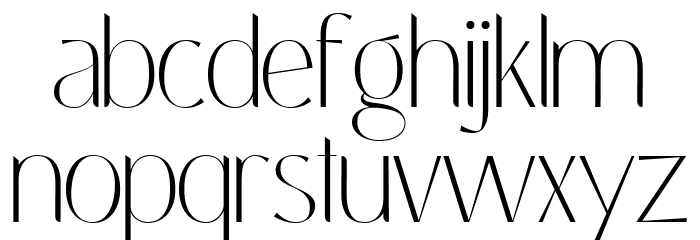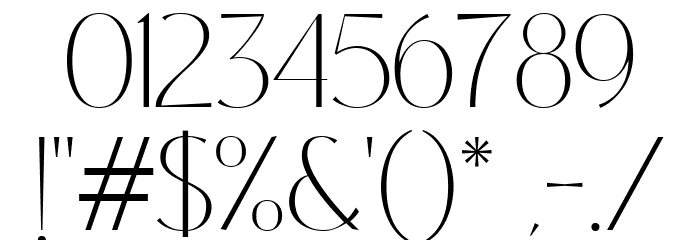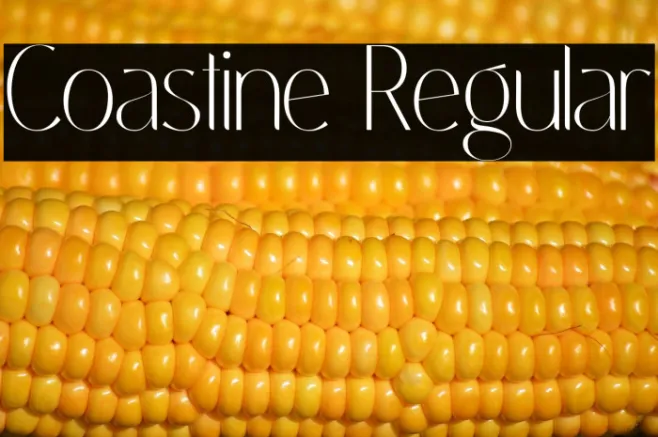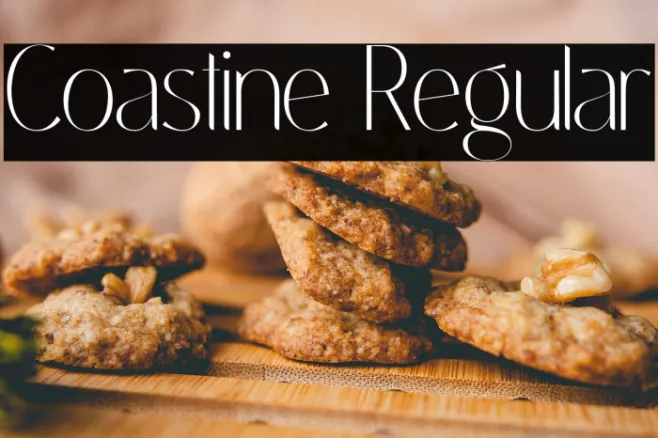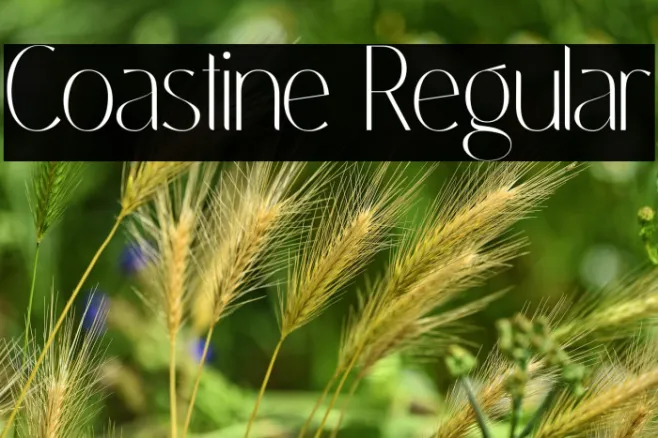
Coastine Regular Font
This font features a sleek and elegant design with thin, elongated letterforms that convey a sense of modernity and sophistication. The uppercase letters are tall and narrow, while the lowercase letters maintain a consistent style, offering a harmonious balance. The numerals are distinct and easy to read, complementing the overall aesthetic. Special characters are designed with the same attention to detail, ensuring versatility in various design contexts. The font's clean lines and minimalistic approach make it suitable for contemporary projects that require a touch of elegance.
A sleek, modern font with thin, elongated letterforms and a sophisticated style.
- Proposed Projects: Ideal for fashion magazines, luxury branding, minimalist posters, and modern web design.